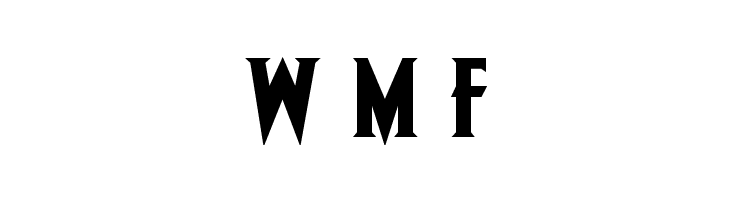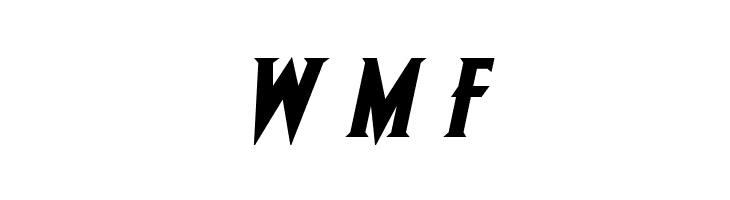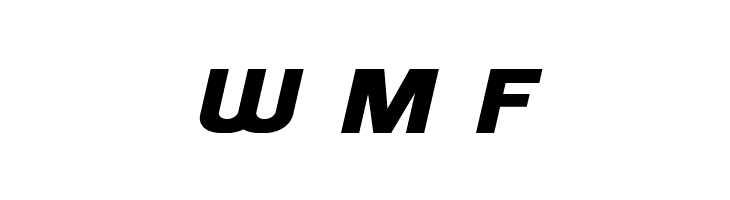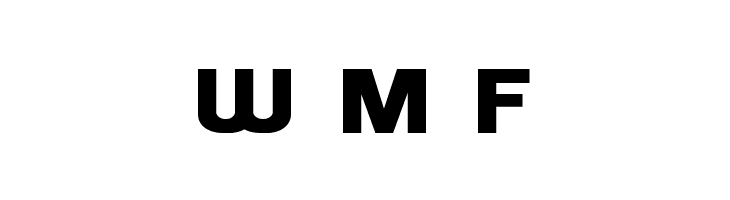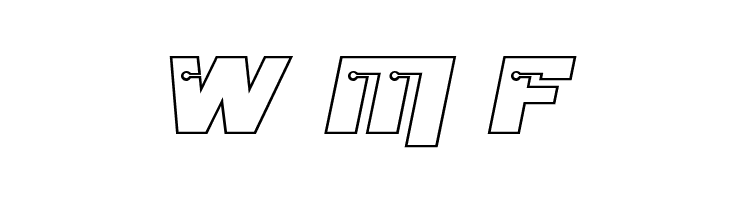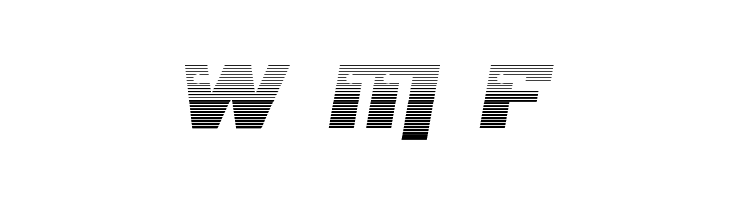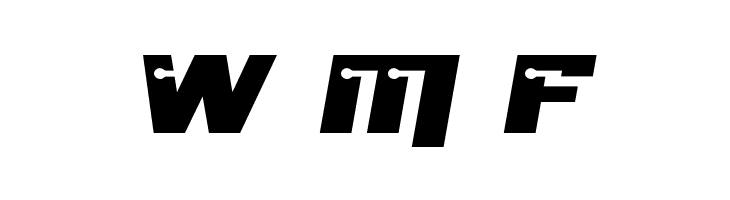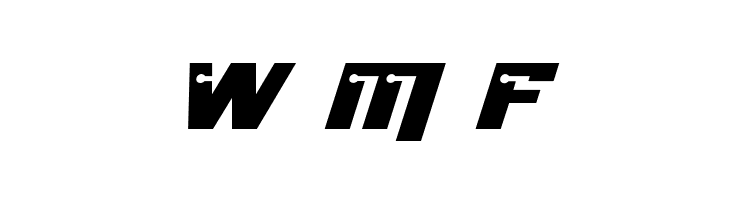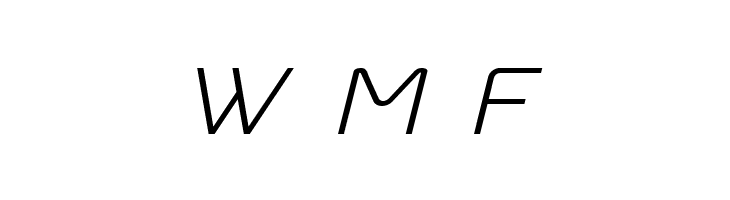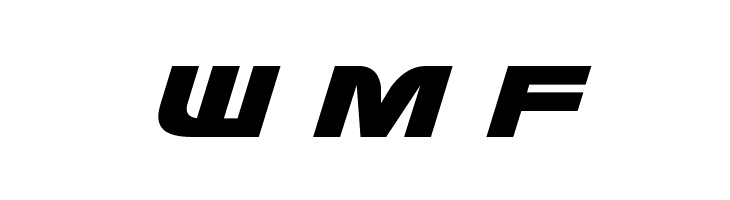
A futuristic, ultra-expanded font with geometric and sleek design.
A bold, expanded, and italicized font with a futuristic and sporty style.
A bold, expanded, and italic font with a futuristic and dynamic style.
A bold, gothic-inspired font with sharp edges and expanded width.
A bold, expanded, and italicized font with sharp, angular serifs.
A bold, expanded, and italicized font with a modern and dynamic style.
A bold, geometric font with an expanded width and strong visual impact.
A bold, futuristic font with expanded width and dynamic slant.
A bold, futuristic font with an expanded outline and geometric design.
A bold, futuristic font with a gradient effect and expanded geometric design.
A bold, futuristic font with angular, geometric shapes and an extra expanded width.
A bold, angular, and futuristic font with expanded italic styling.
A modern, semi-bold, expanded italic font with a sleek and dynamic style.
A bold, expanded font with a futuristic and geometric design.
A sleek, futuristic expanded italic font with geometric lines.
A bold, expanded, and italic font with a modern, geometric design.
A futuristic, angular, and italic font with expanded width and geometric design.
A bold, expanded, and italicized font with a futuristic and dynamic design.
A bold, italic, and expanded font with a modern, futuristic style.
A bold, expanded, and italicized font with a futuristic and dynamic style.
A bold, geometric font with an expanded width and industrial style.
A bold, expanded, and italic font with a futuristic and dynamic style.
A sleek, futuristic italic font with expanded characters and geometric design.
A futuristic, expanded italic font with smooth curves and a modern aesthetic.
A bold, expanded, and italic font with a futuristic and geometric design.
Bold, italic, and expanded with a modern, dynamic style.
A bold, futuristic font with geometric shapes and expanded width.
A bold, expanded, and italicized font with a modern, dynamic style.
A bold, expanded, and italic font with a modern and dynamic style.
A futuristic, expanded italic font with a geometric and angular design.
A futuristic, geometric font with an expanded width and modern style.
A futuristic, expanded italic font with bold, angular letterforms.
A bold, angular, and expanded font with a futuristic style.
A bold, expanded, and italicized modern font with strong visual impact.
A bold, italic, and expanded font with a dynamic and futuristic style.